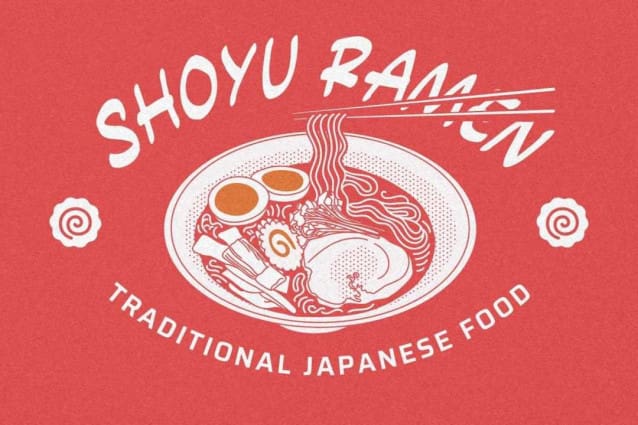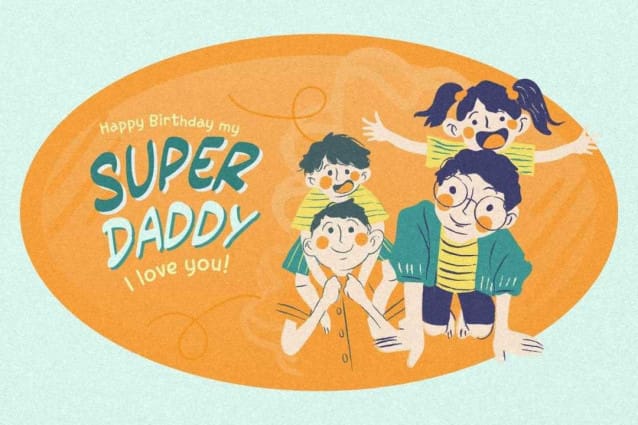
Power Entry Font
Power Entry Font, perfectly fit for branding, logo, wedding things, greeting cards, fashion, lookbook, marketing promotion, anytime you want to look fancy elegant but still casual.